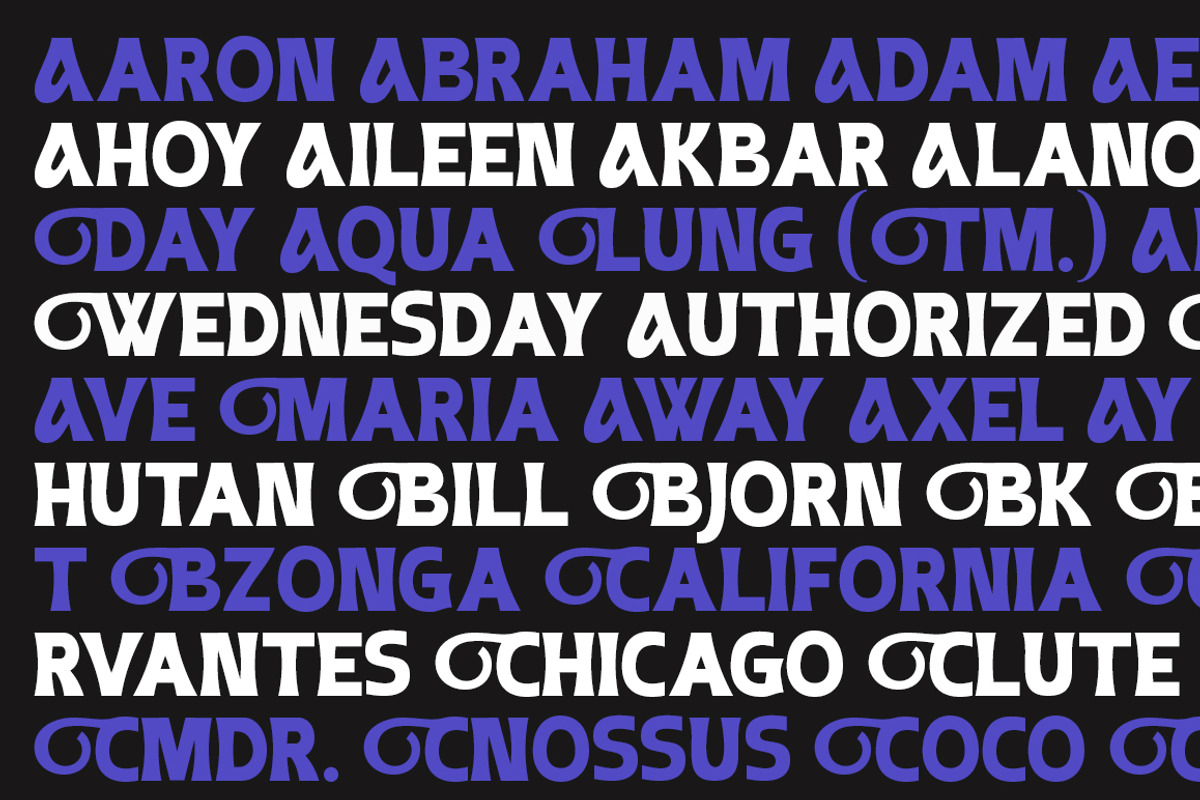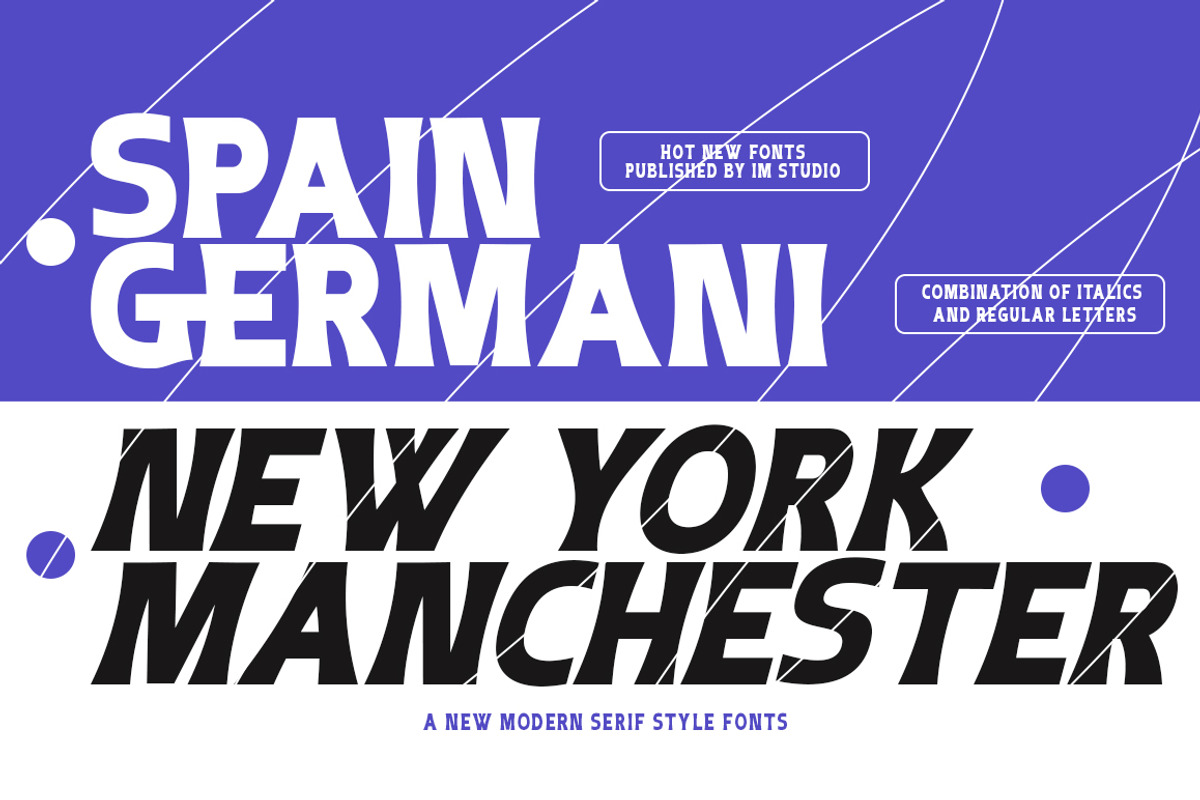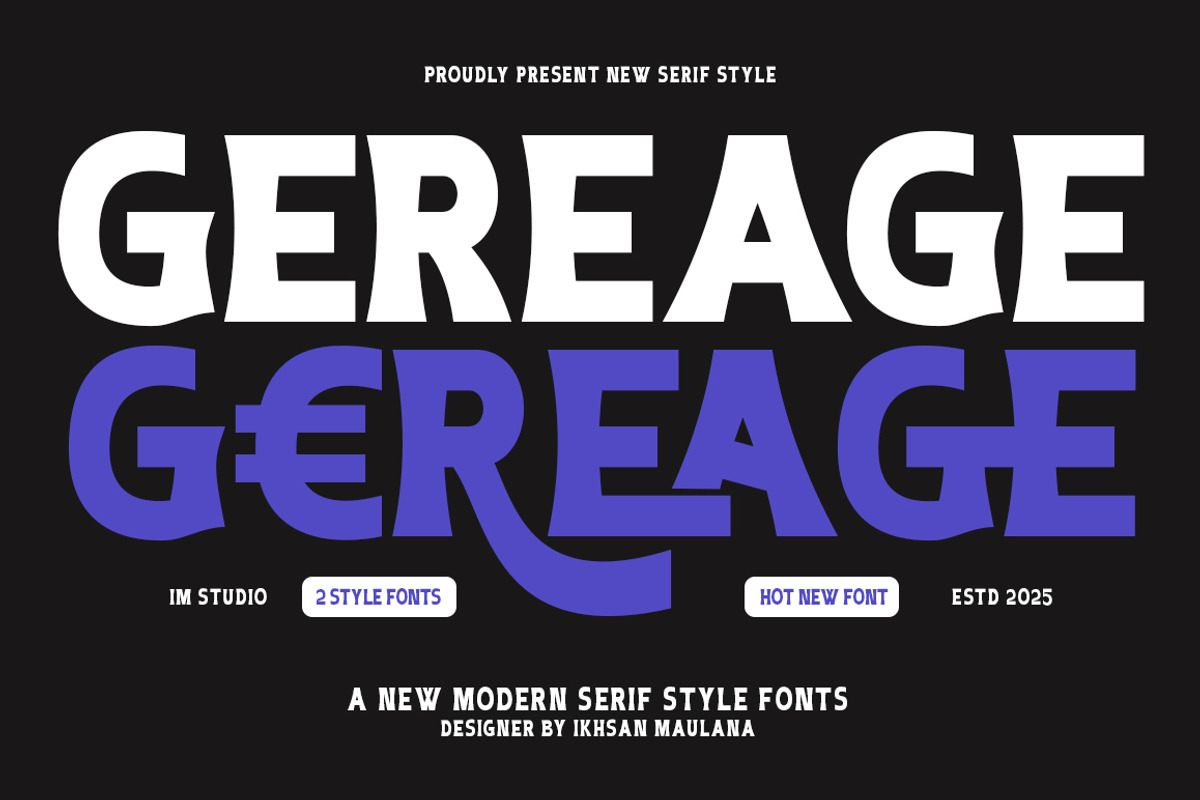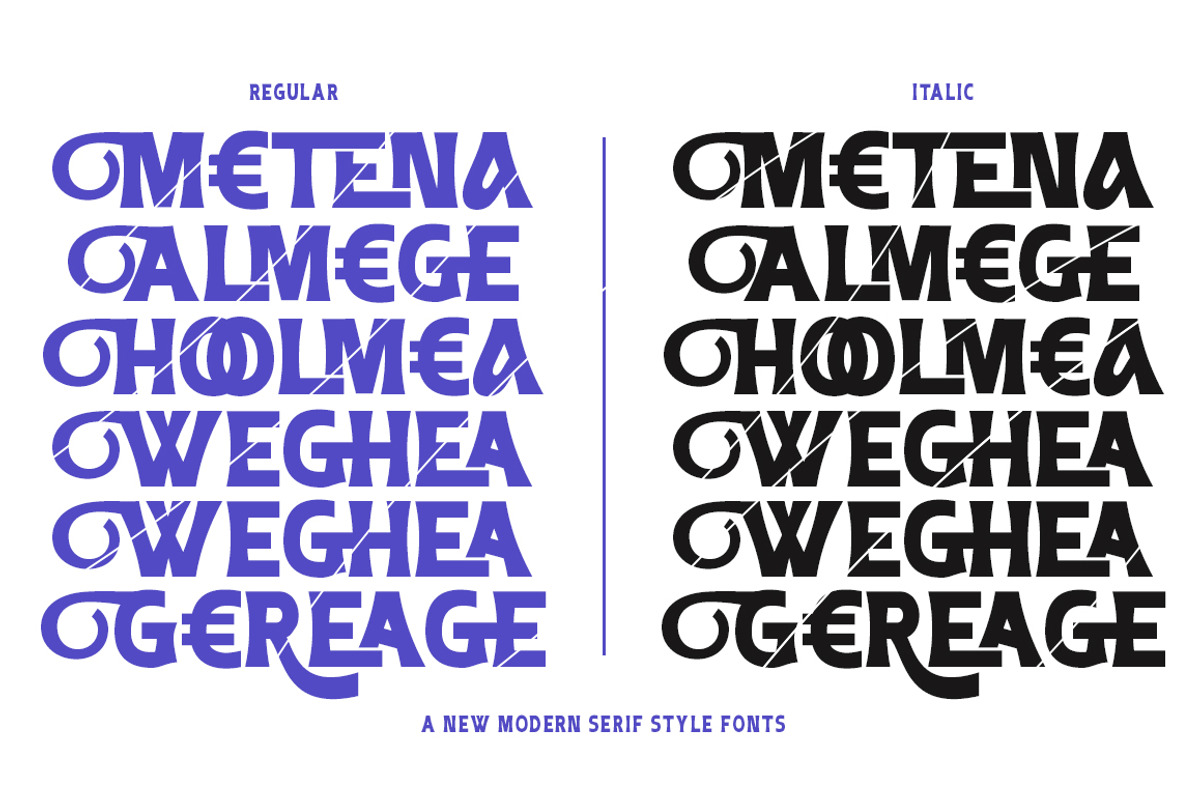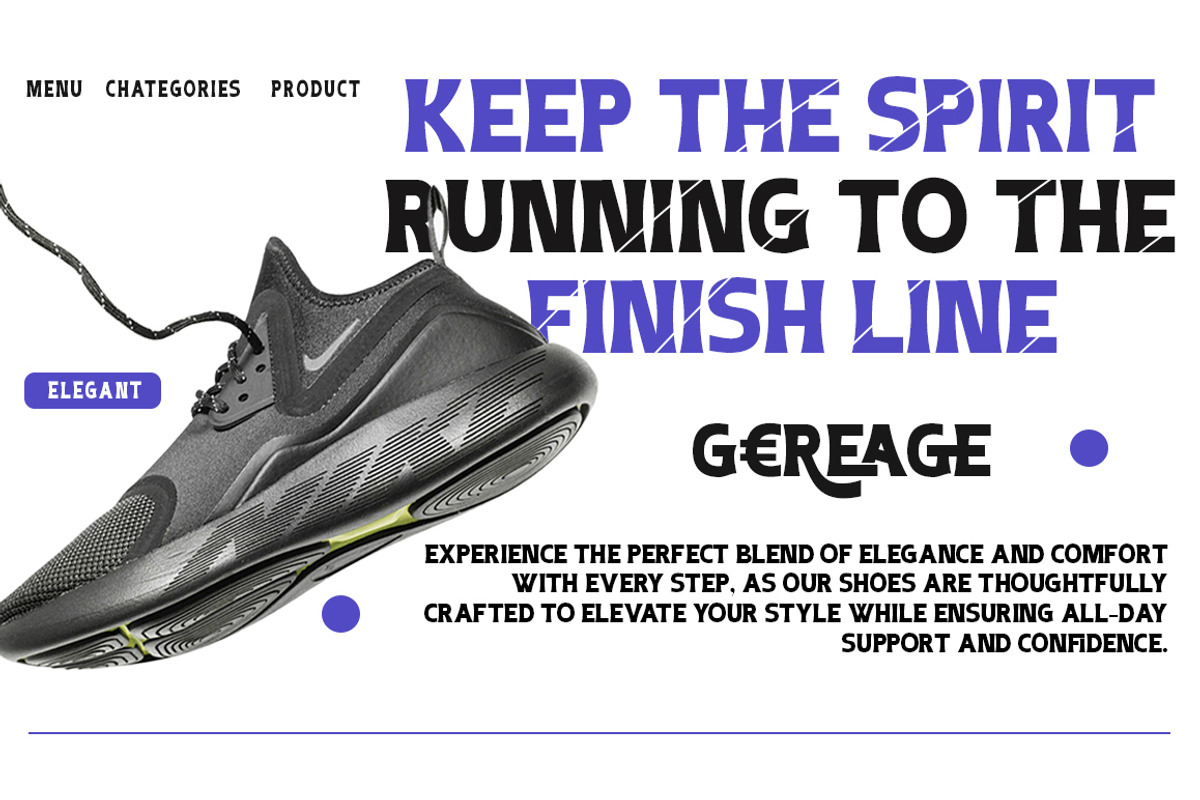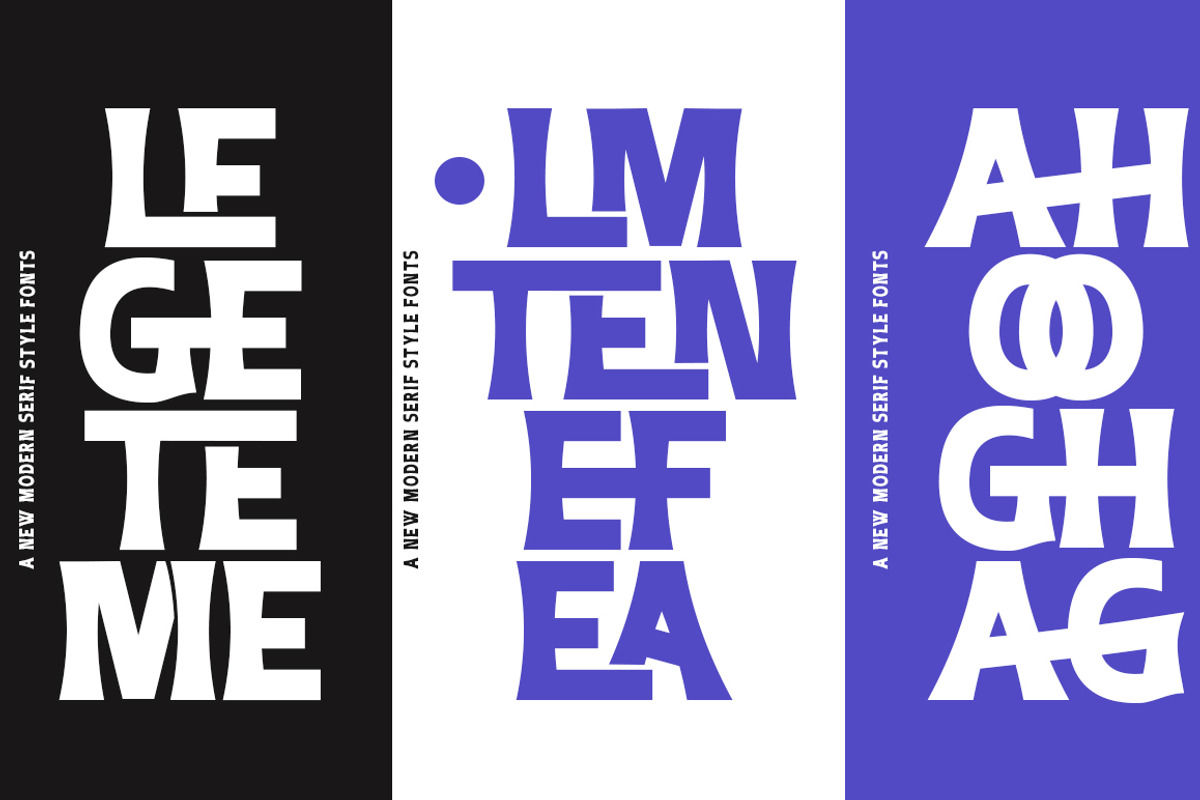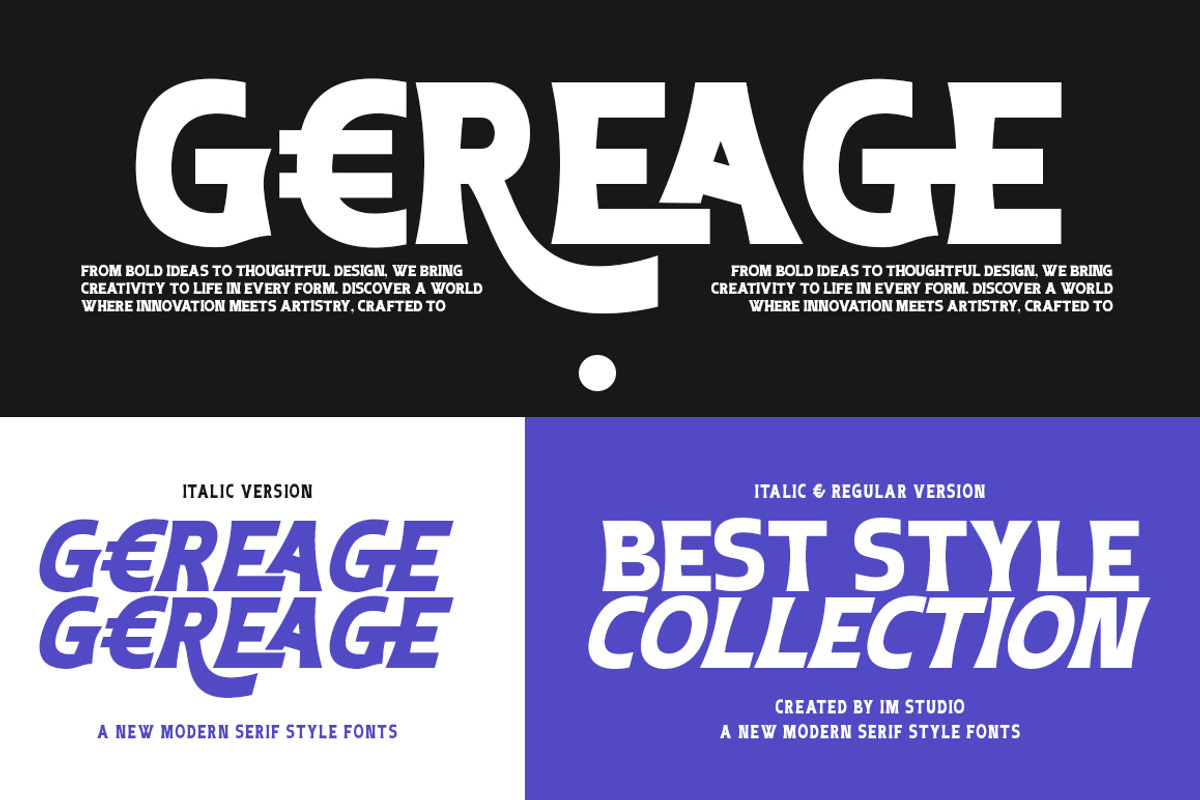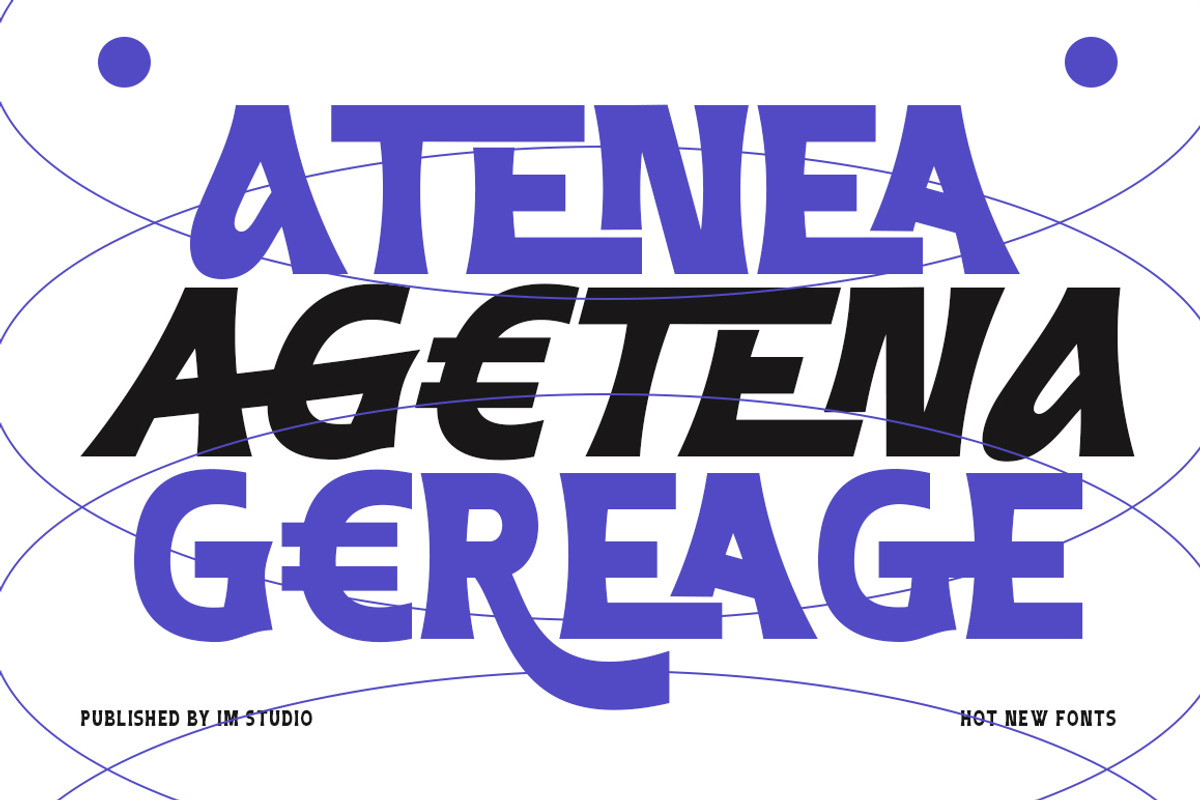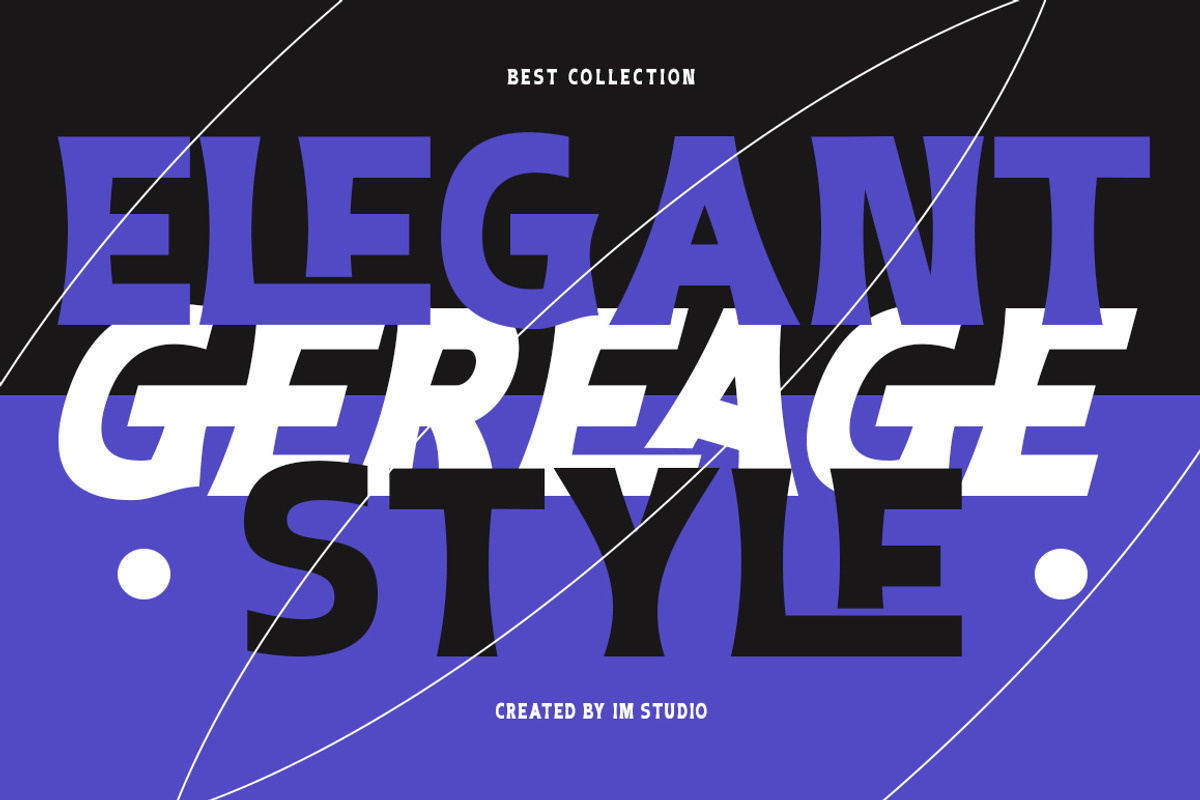
Gereage
Gereage is a cute and charming display font. Whimsical and a little quirky, this font will brighten up any of your designs. Add it with confidence to your projects, and you'll love the results. This font is PUA coded which means you can access all the amazing glyphs and ligatures easily!